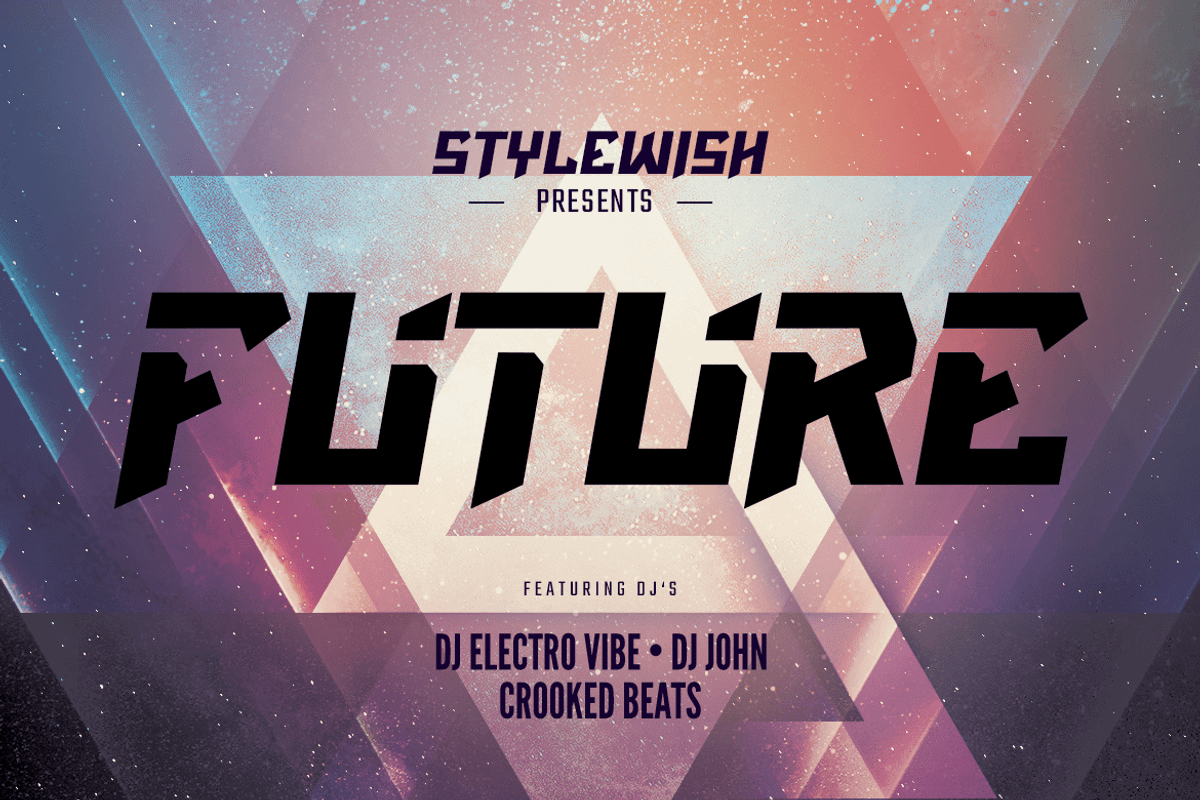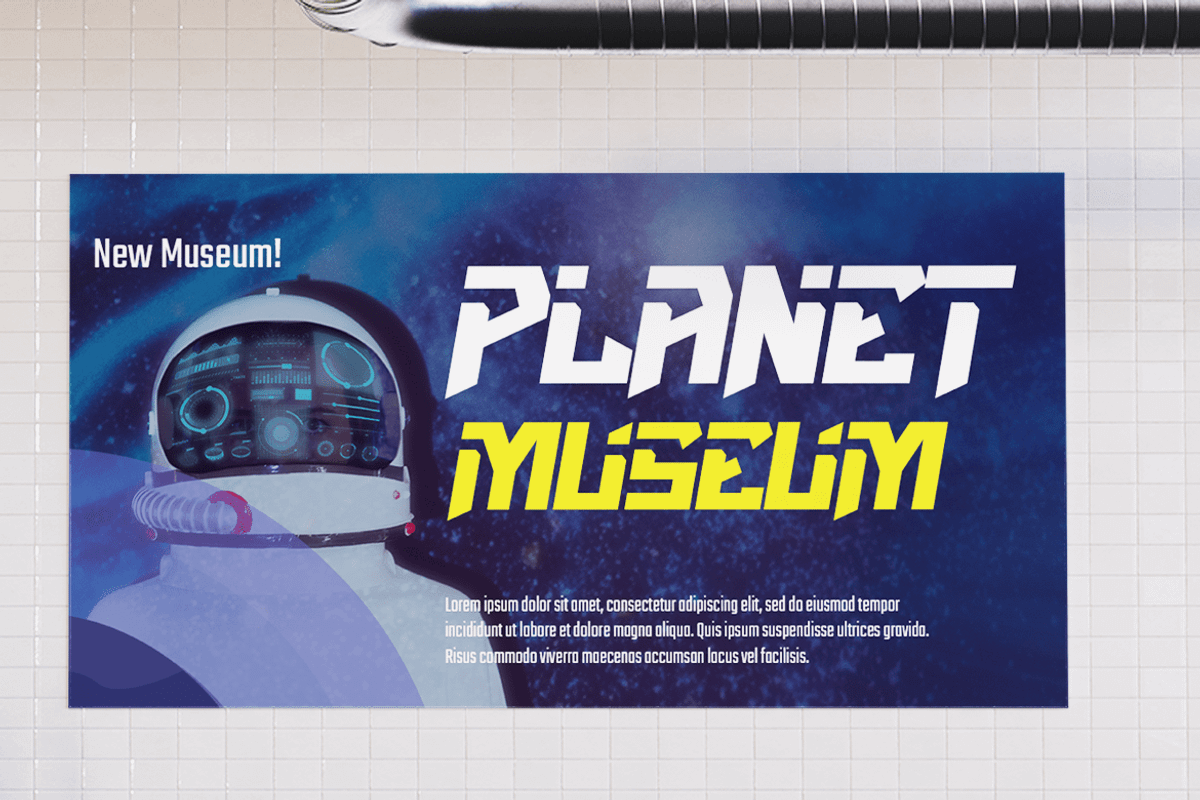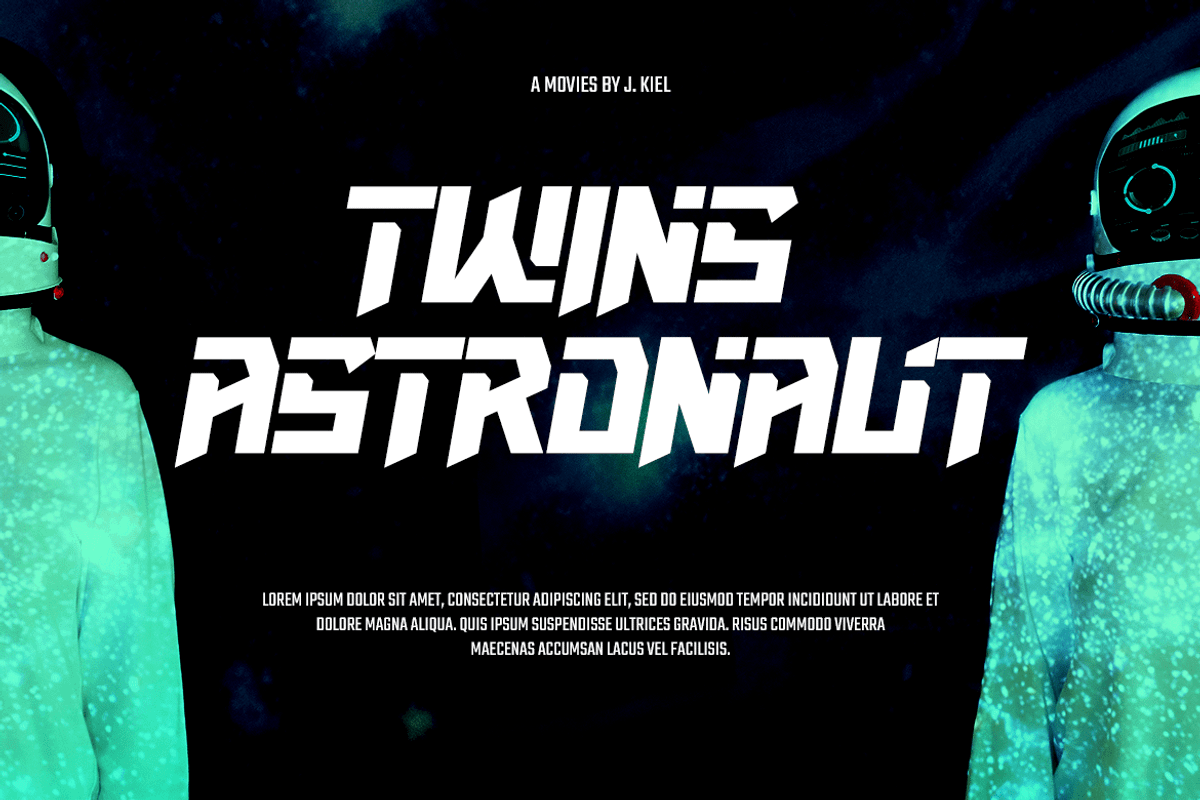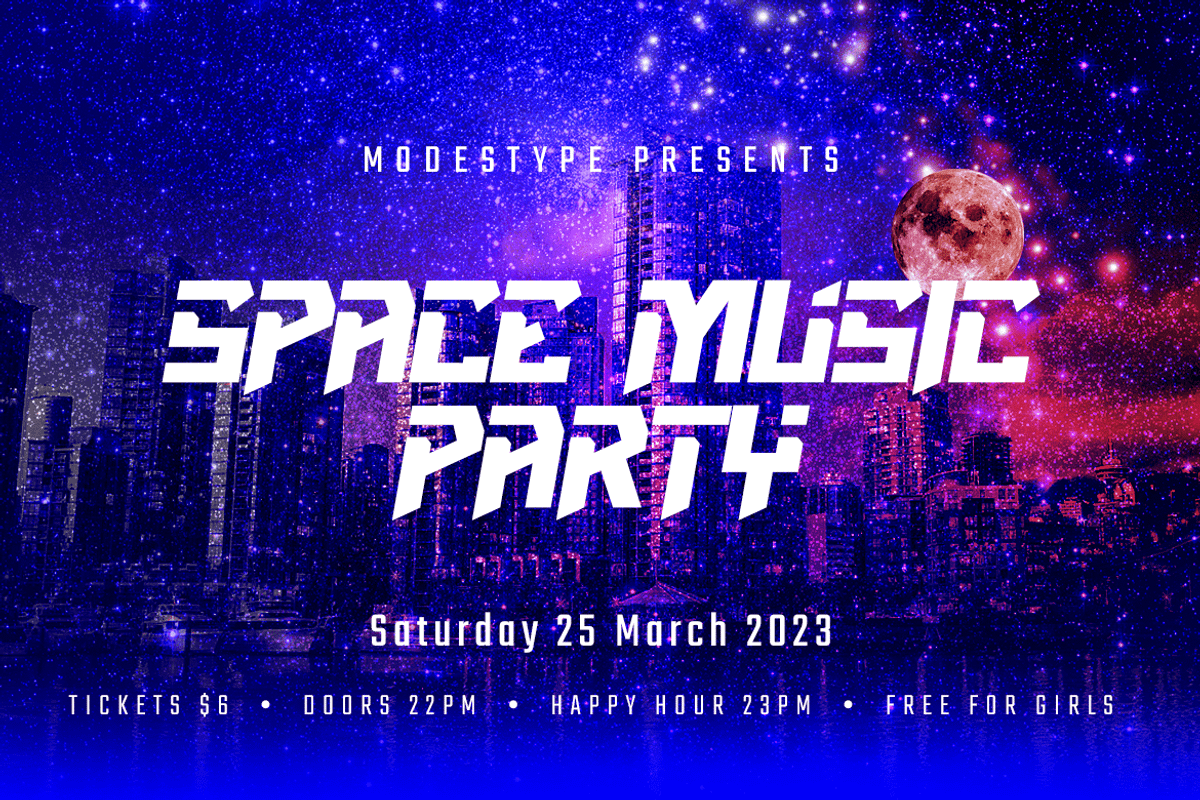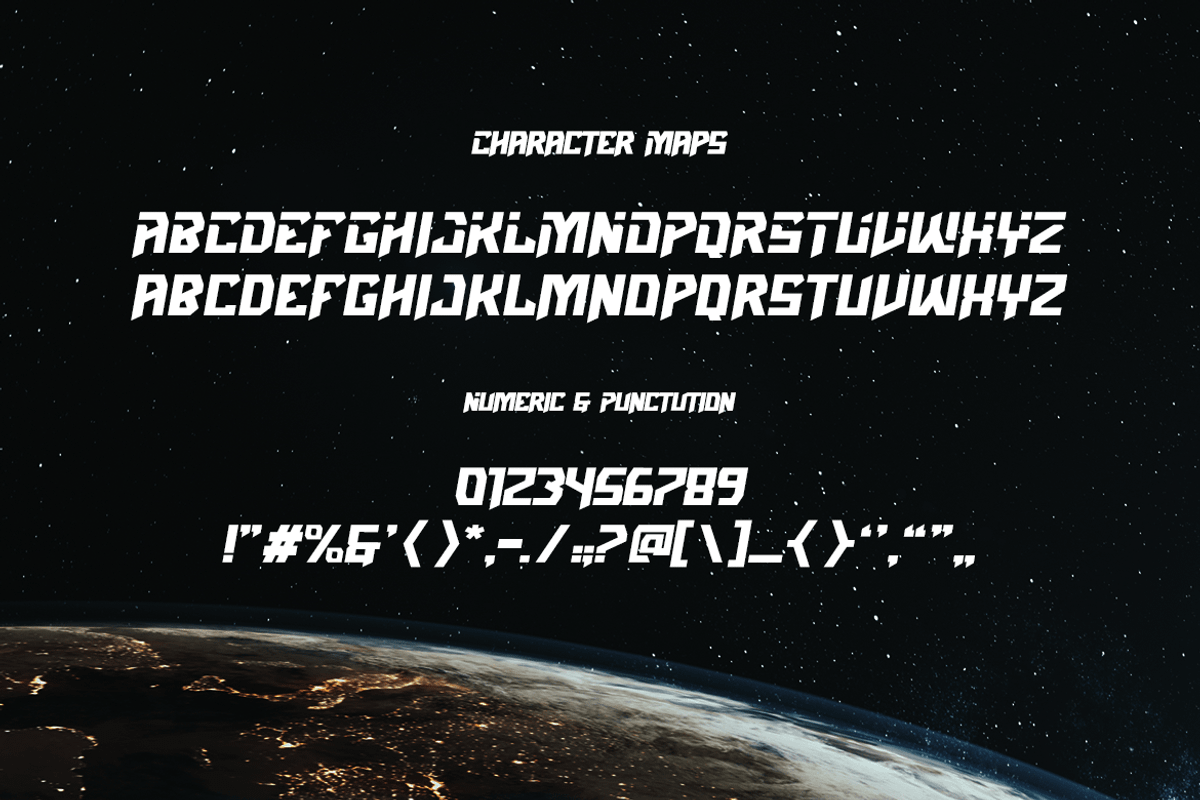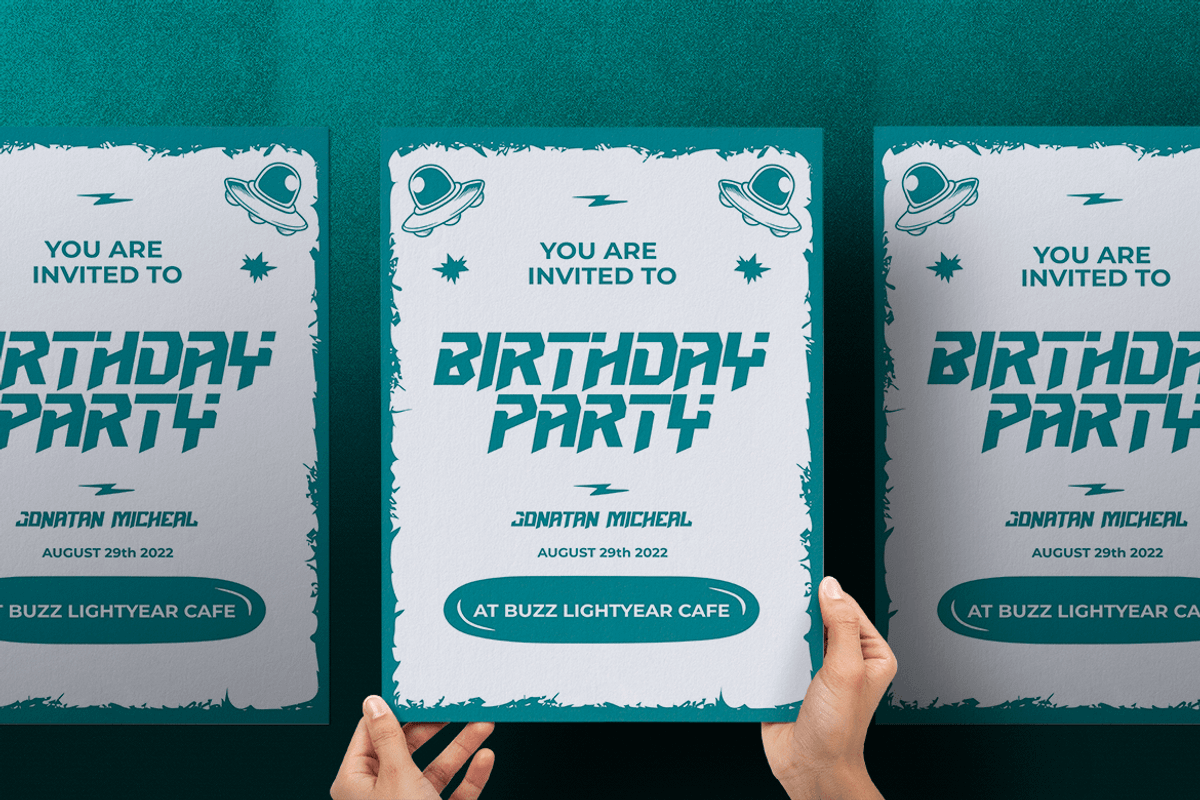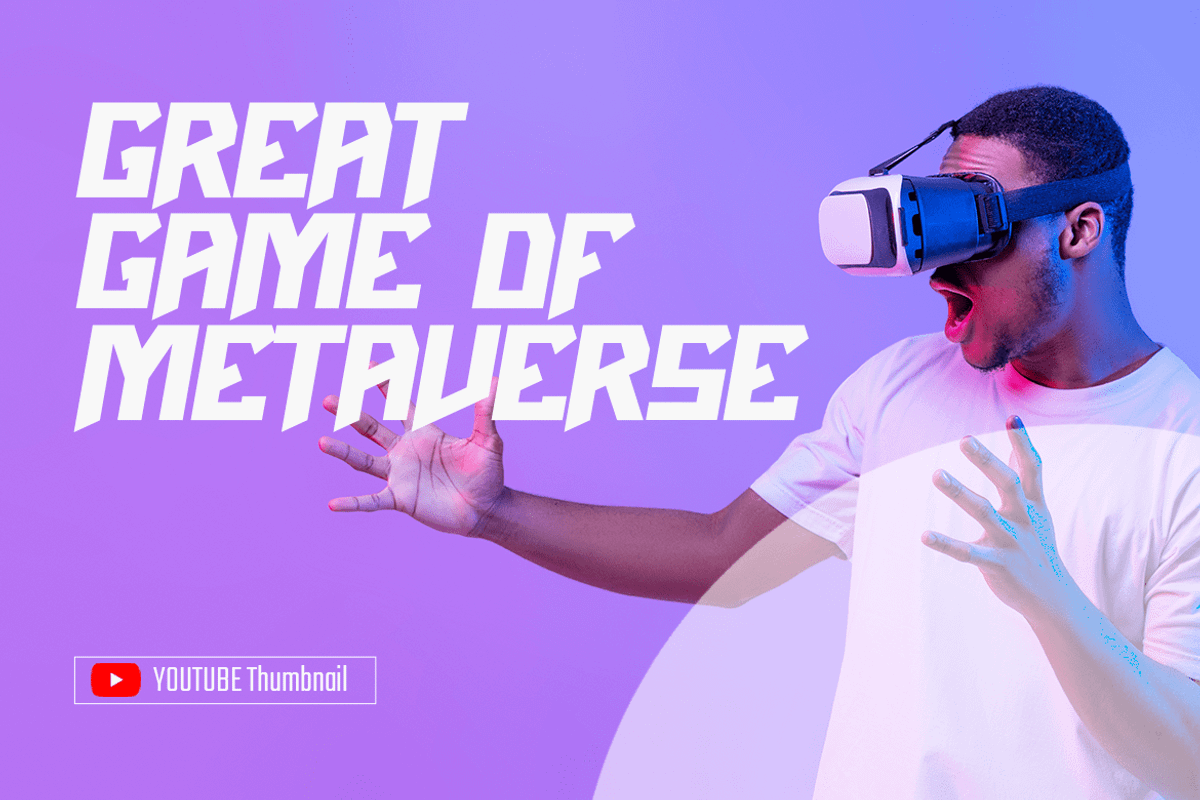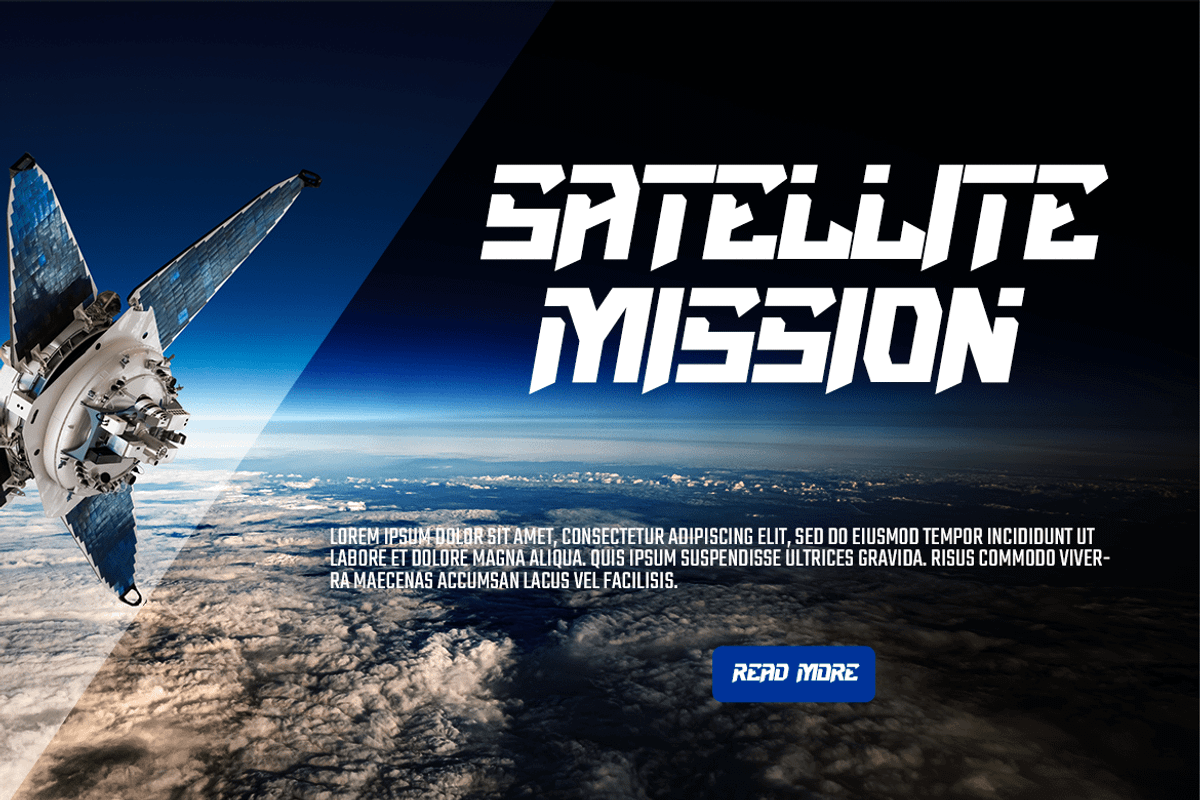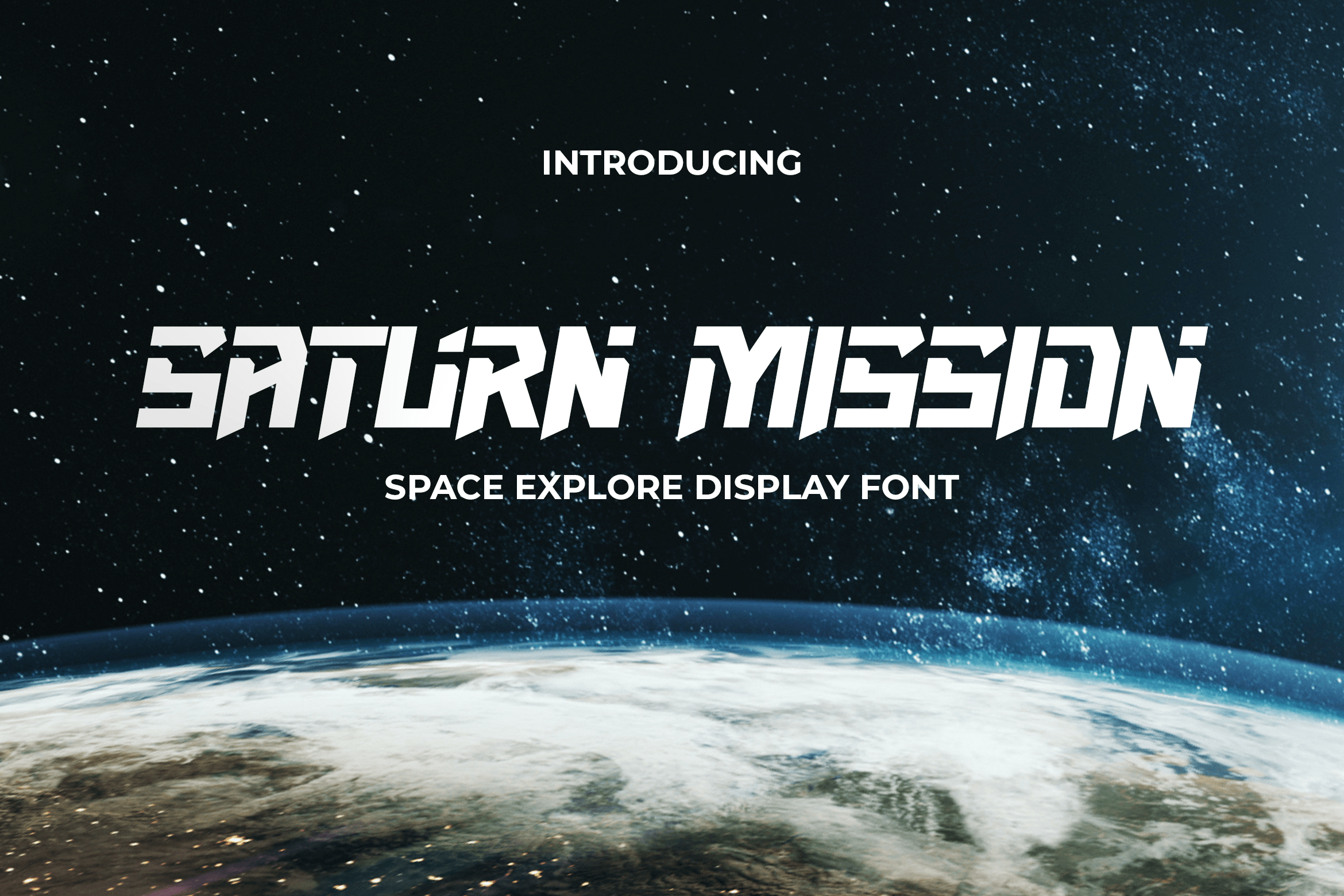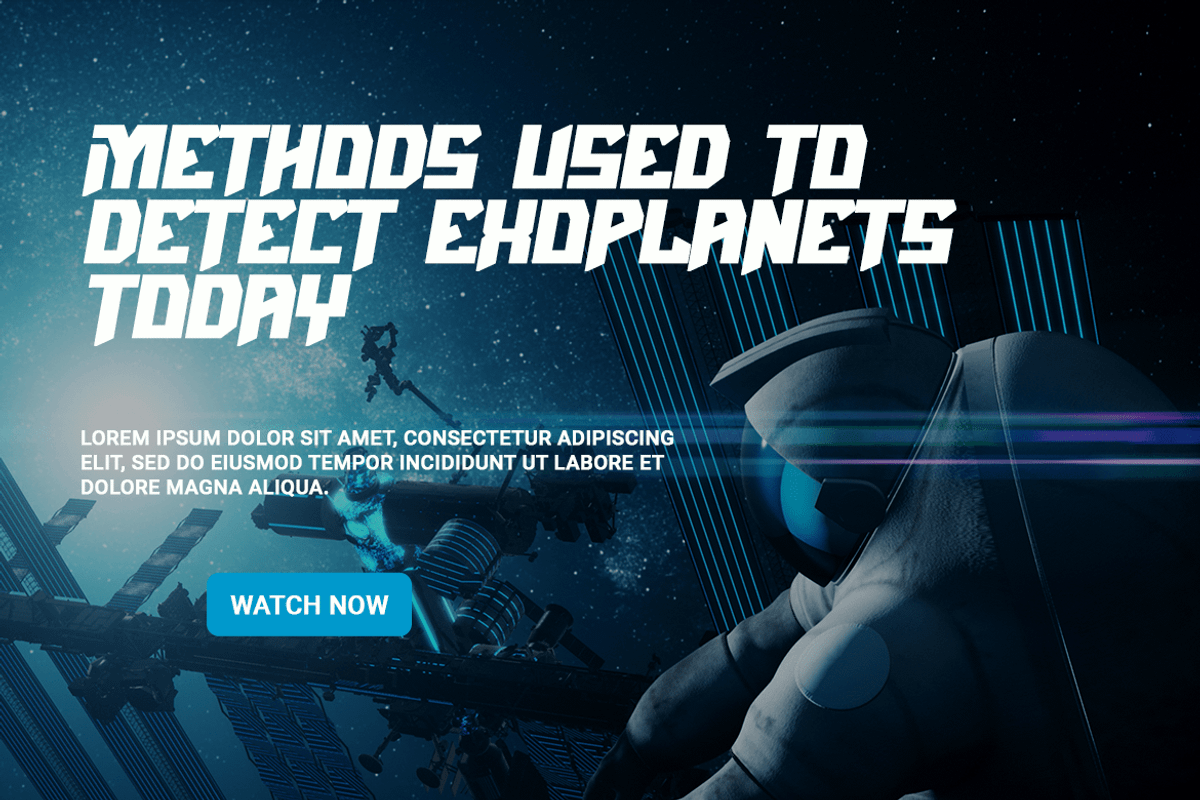
Saturn Mission-Explore Display Font
Saturn Mission - Explore Display Font
Embark on a font exploration with Saturn Mission - the ultimate Display Font that's perfect for gaming, movies, Youtube, and more! With its modern and futuristic design, Saturn Mission is the ideal choice for creating eye-catching headlines, logos, and designs that are out of this world.
Saturn Mission's playful yet sleek sans serif style makes it suitable for a wide range of applications, from kids' projects to sci-fi movies. Its versatility ensures that your text remains clear and legible, even in the most creative and imaginative designs.
Whether you're on a gaming adventure, launching a YouTube channel, or working on a futuristic movie poster, Saturn Mission will take your projects to the next level. Don't miss out on the opportunity to explore the endless possibilities of this versatile font. Download Saturn Mission today and elevate your designs to new heights!